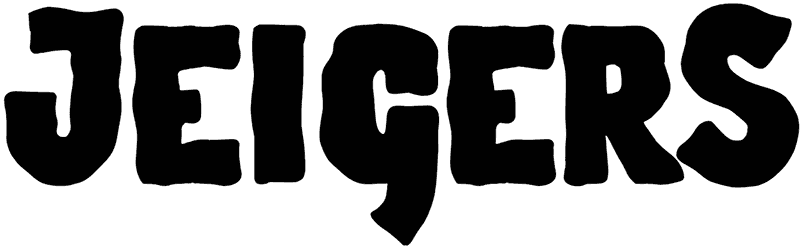
Jeigers Font
Jeigers is a fancy font with a distinctive and captivating style. This cartoon font stands out thanks to its two sets of uppercase letters. Even though it lacks lowercase letters and numbers, this font is ideal for creating headlines, titles, and more.